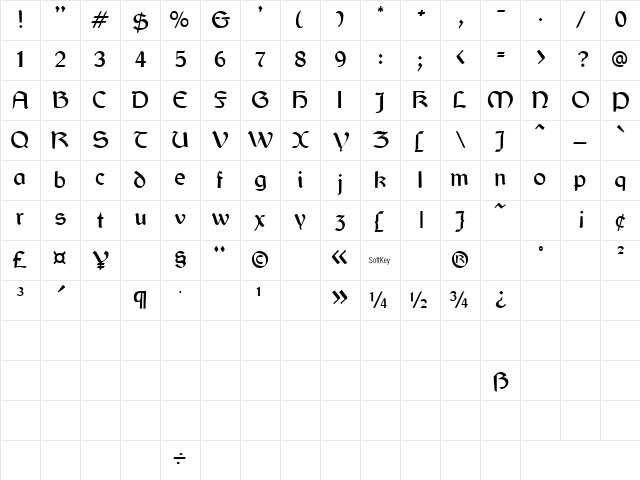
Nightfall 1 Regular
Design Context for Nightfall 1
Nightfall 1 is a composed and adaptable typeface that performs quietly and consistently across a wide range of design contexts.
Pro Tip: Use Nightfall 1 in both headline and body roles to test its range before committing to a single application.